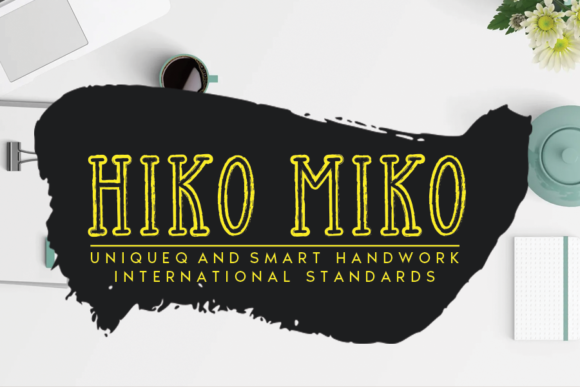
The Quirky Charm of Hiko Miko Font
Have you ever been brainstorming ideas for a project and suddenly, a spark of creativity hits you? Maybe it’s a conversation with a friend, a random observation, or simply staring at a blank page. Whatever the source, those moments of inspiration can be game-changers. For me, it was when I stumbled upon the Hiko Miko Font – a quirky and captivating display font that instantly added a touch of personality to any design.
Hiko Miko Font is more than just a font; it’s a statement piece. Designed to add a dash of whimsy and charm, this unique typeface is perfect for designers looking to elevate their work. Whether you’re working on a branding project, a social media campaign, or a website, Hiko Miko Font is sure to bring a smile to your face and a touch of magic to your designs.
Hiko Miko Font Key Features
- Font Style: Hiko Miko is a unique, hand-drawn font with a playful and whimsical feel, ideal for children’s books, educational materials, and creative projects.
- Character Set: The font includes a wide range of characters, including uppercase and lowercase letters, numbers, punctuation marks, and special characters.
- Unique Characteristics: Hiko Miko features a distinctive, hand-drawn style with varying line widths, making it a great choice for designers seeking a unique and eye-catching font.
Hiko Miko Font Review
When I first laid eyes on the Hiko Miko Font, I was immediately drawn to its playful and whimsical feel. The font is perfect for creating a sense of fun and playfulness in your designs ✨. The combination of bold and thin lines creates a nice contrast, making it easy to read and understand. The font is also highly customizable, allowing you to adjust the spacing and lettering to fit your design needs.
One of the things that really stands out about the Hiko Miko Font is its versatility ✨. It can be used for a wide range of applications, from children’s books and educational materials to packaging and branding. The font is also highly legible, making it easy to read even at small font sizes.
- ⚠️ Limited font styles: While the Hiko Miko Font is highly customizable, it’s still a relatively simple font with limited style options.
- ⚠️ May not be suitable for formal designs: Due to its playful and whimsical nature, the Hiko Miko Font may not be the best choice for formal designs or applications where a more serious tone is required.
Overall, I would give the Hiko Miko Font 4 out of 5 stars. While it has some limitations, it’s a great choice for designers who want to create fun and playful designs. With a little creativity and customization, the Hiko Miko Font can be used to create some truly amazing designs.